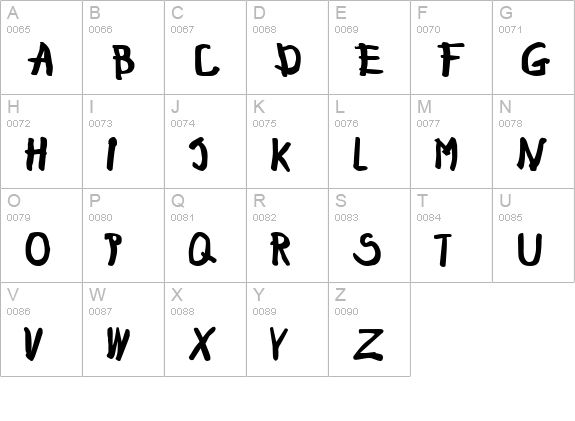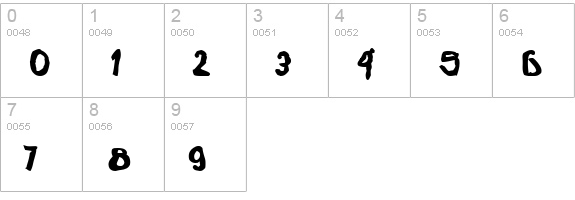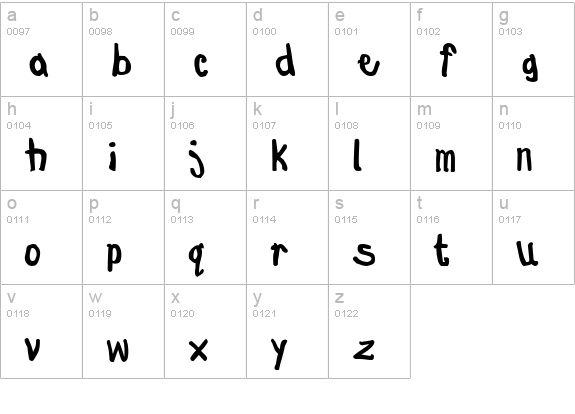
Klimbim Font Details
The Klimbim font is a delightful and whimsical typeface that exudes a playful charm. Its unique and quirky design is sure to add a touch of fun to any project. With its quirky letterforms and energetic style, Klimbim is perfect for creating eye-catching designs that stand out from the crowd. What's even better is that the Klimbim font is available for free download at FontsMarket.com. This means that you can easily access this charming typeface and use it in your personal or commercial projects without any cost. Whether you're designing a poster, invitation, or logo, Klimbim is a versatile font that is sure to bring a smile to your audience's face. Download the Klimbim font today and let your creativity soar!